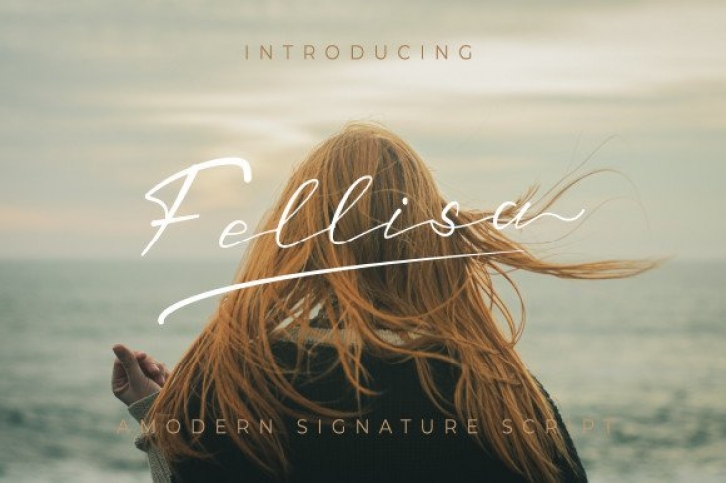
Fellisa is a beautiful and subtle script font. It will add a luxury spark to any design project that you wish to create! This font is PUA encoded which means you can access all of the amazing glyphs and ligatures with ease!